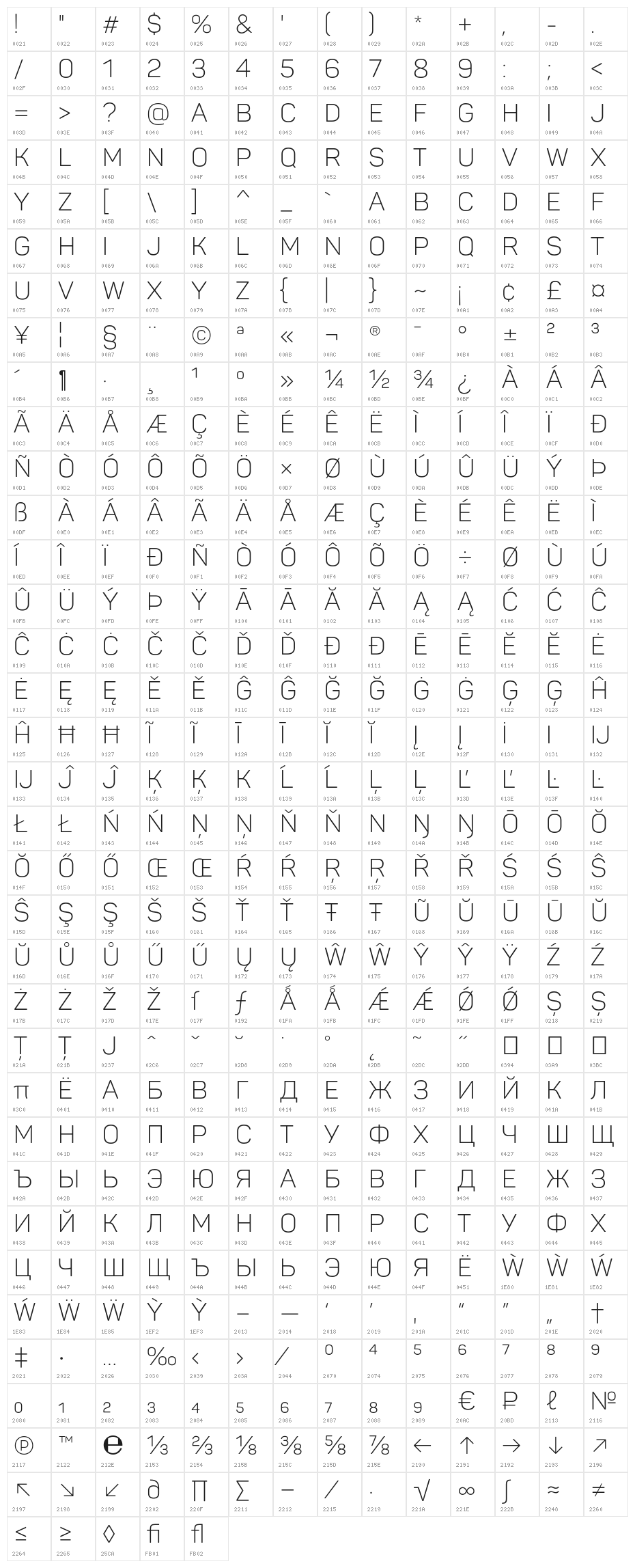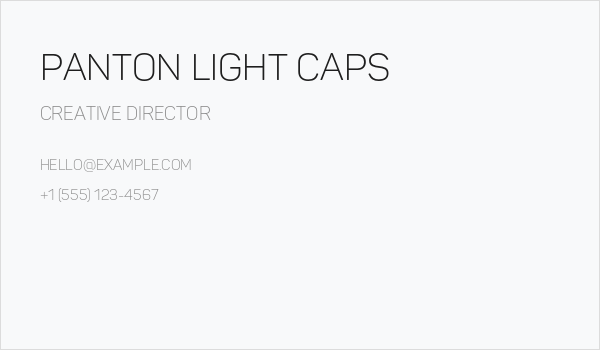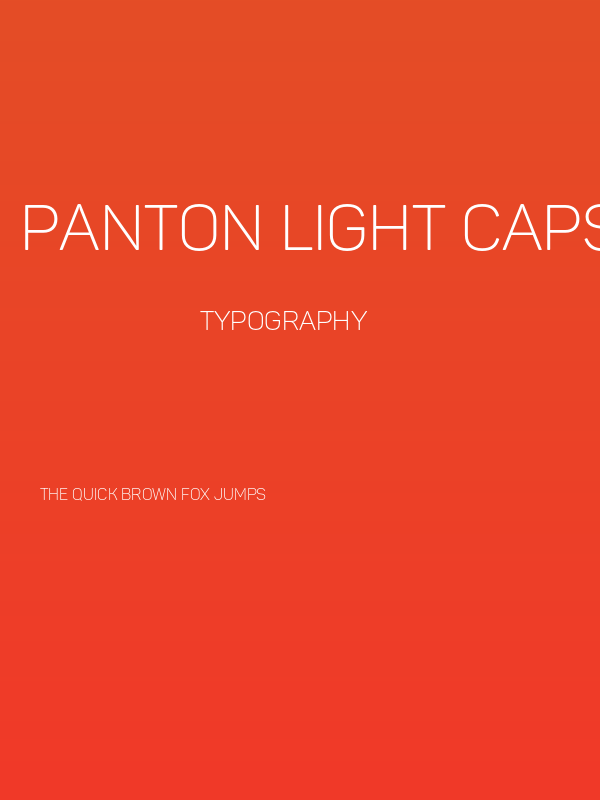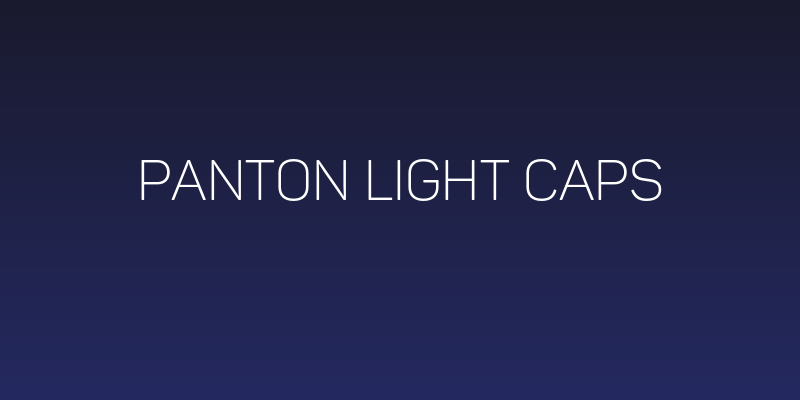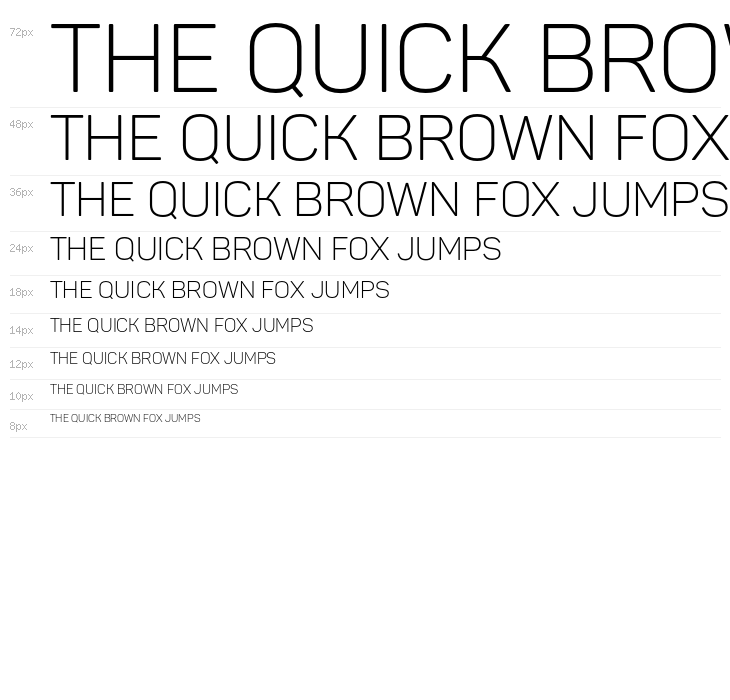
Panton Light Caps Font
Panton Light Caps Description
This font features a clean and modern sans-serif design with a light weight, offering a sleek and minimalist appearance. The characters are evenly spaced with a normal width, providing excellent readability. The strokes are consistent in thickness, contributing to a low contrast look that enhances its contemporary style. The uppercase letters are uniform and geometric, while the numerals and special characters maintain the same aesthetic, ensuring a cohesive look across all text. This font is versatile and suitable for a variety of design applications, from digital interfaces to print media.